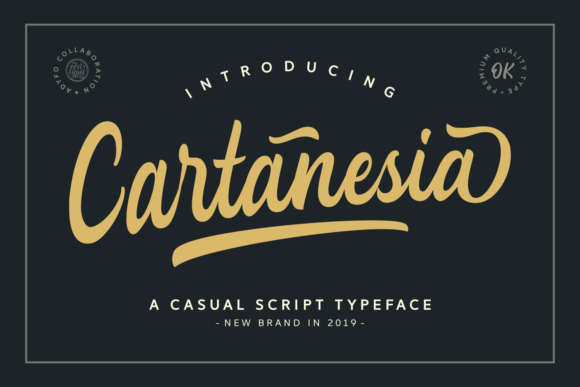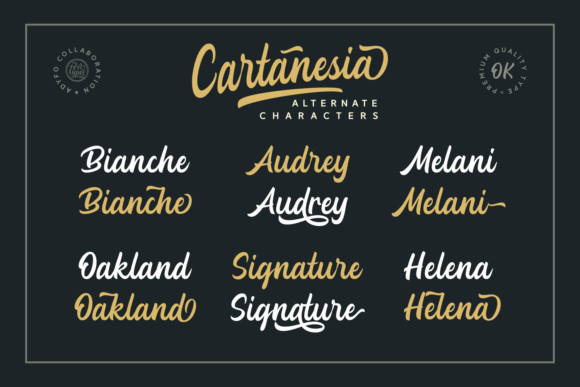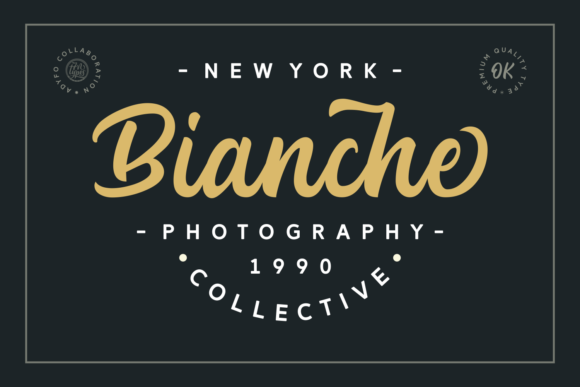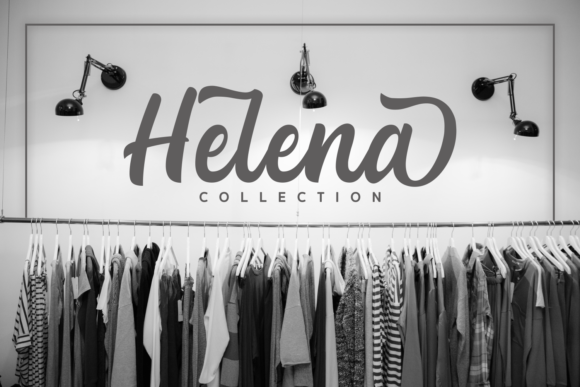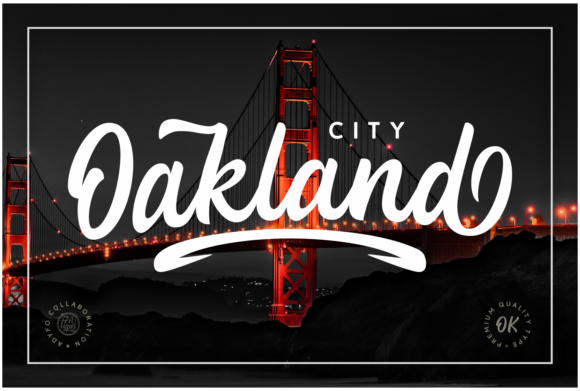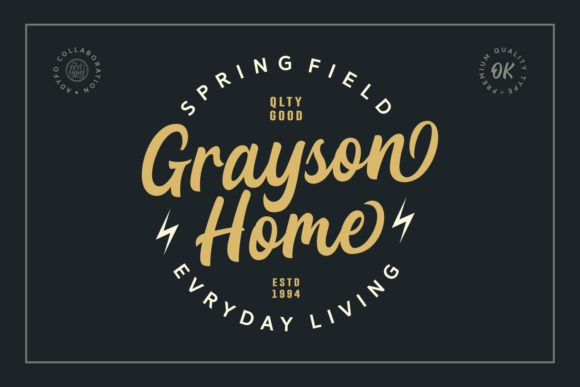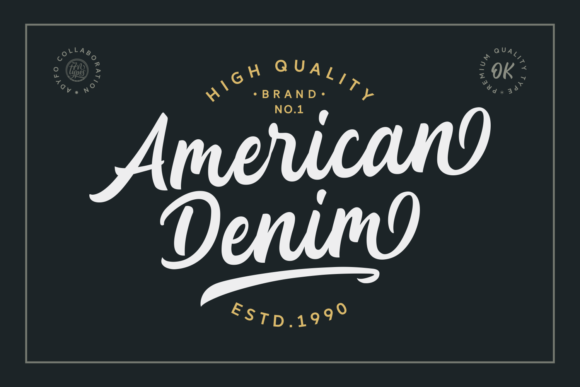
Cartanesia Font
About Cartanesia Font
Cartanesia is a bold and beautiful handwritten font with a distinct authentic feel. It will turn any creative project into an eye-catcher.